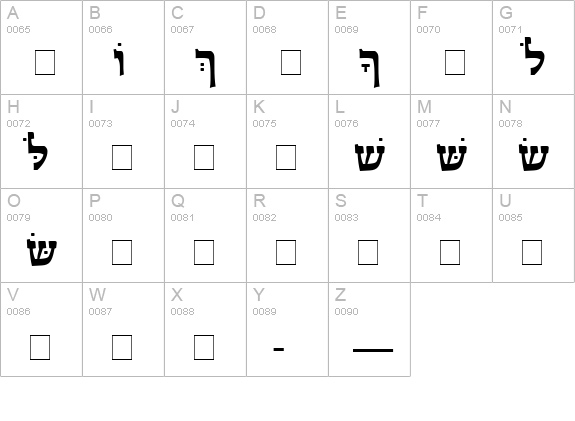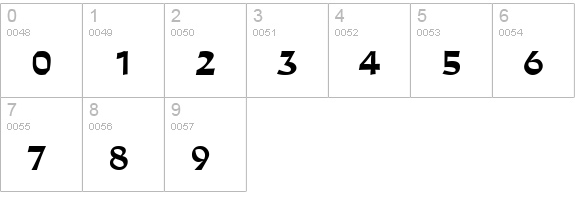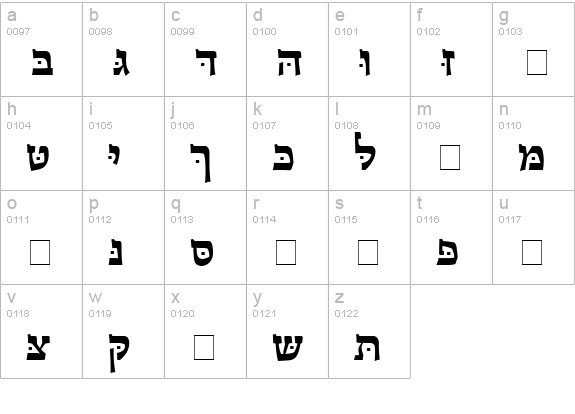
Monotype Hadassah Bold is a strong, high-contrast variant in the Monotype typeface family \xE2\x80\x94 well suited to headlines, attention-grabbing titles, and strong calls-to-action.
Monotype Hadassah Bold font is a striking and impactful typeface that exudes confidence and authority. With its bold and commanding presence, this font is perfect for making statements and catching the eye of the reader. The thick strokes and sharp angles of Monotype Hadassah Bold give it a modern and edgy look that is sure to stand out in any design project. What sets Monotype Hadassah Bold apart is not just its bold appearance, but also its versatility. Whether used for headlines, titles, or branding, this font commands attention and leaves a lasting impression. Its strong and bold characters make a bold statement while maintaining readability and clarity. And the best part? Monotype Hadassah Bold font is available for free download at FontsMarket.com. This means that you can easily access this powerful font and incorporate it into your designs without any hassle. So why wait? Download Monotype Hadassah Bold today and make a bold statement with your design projects.